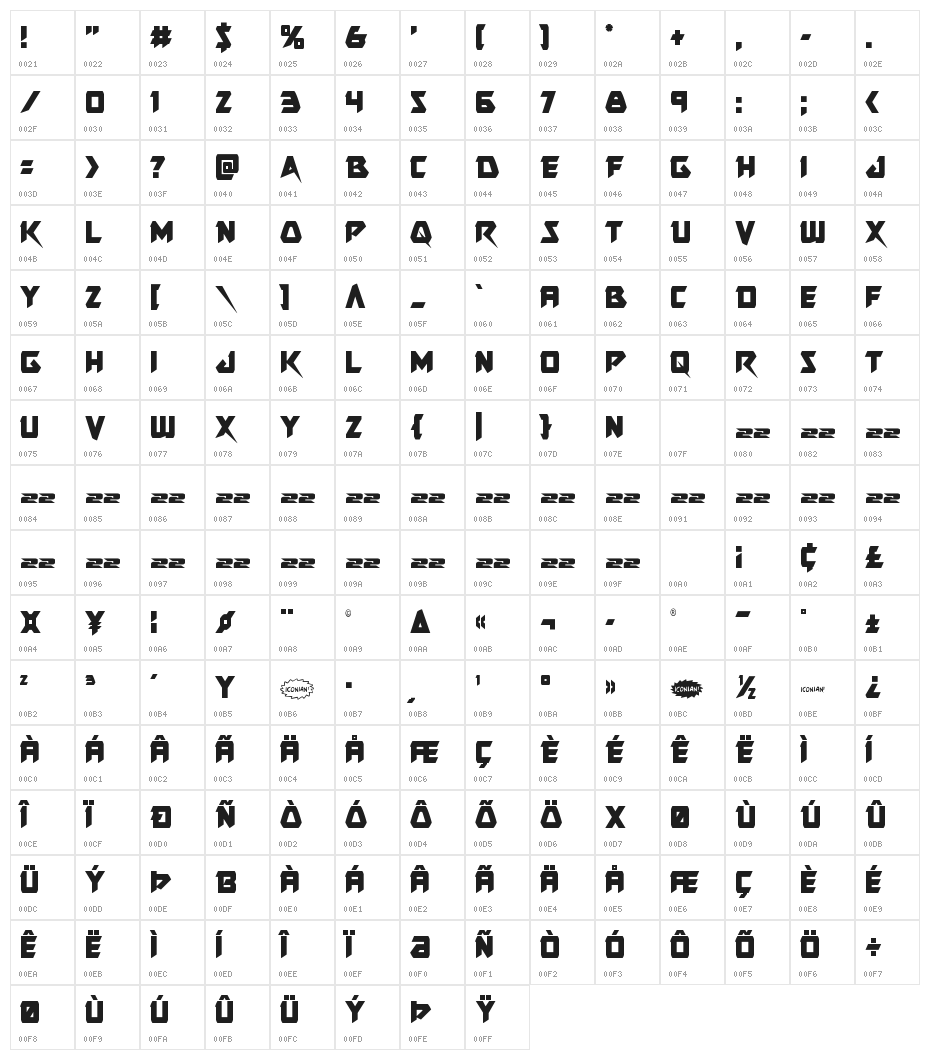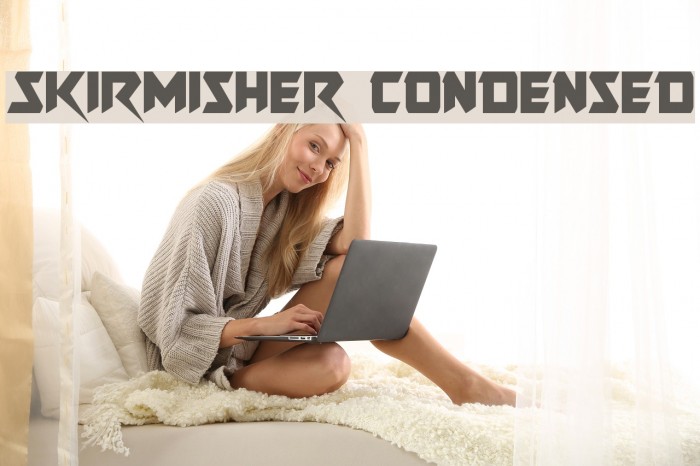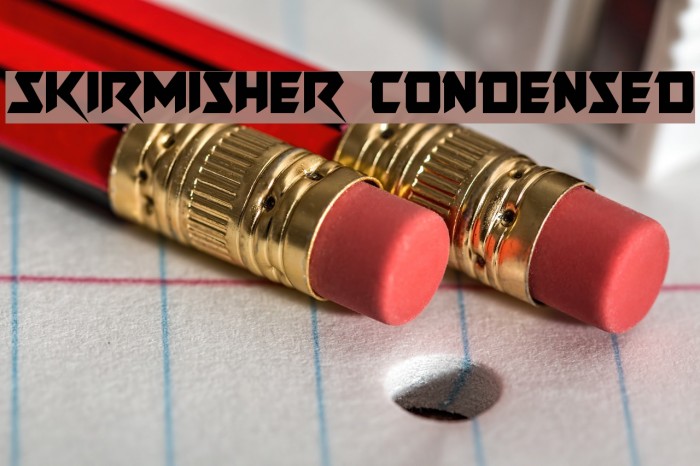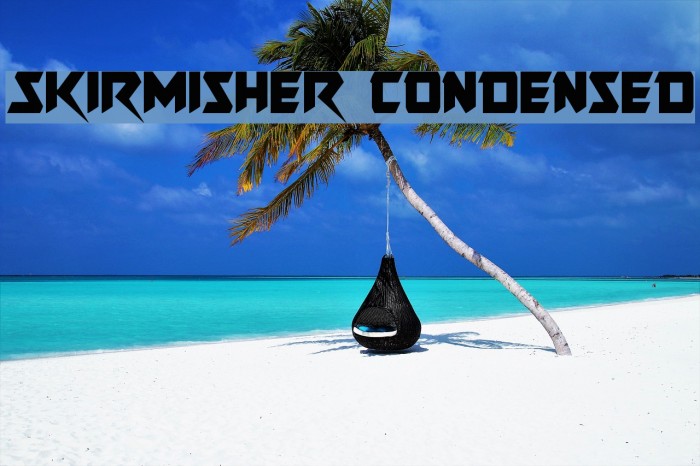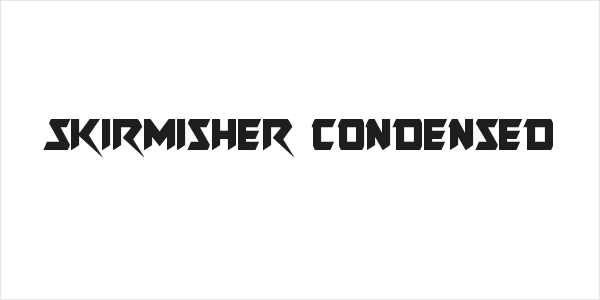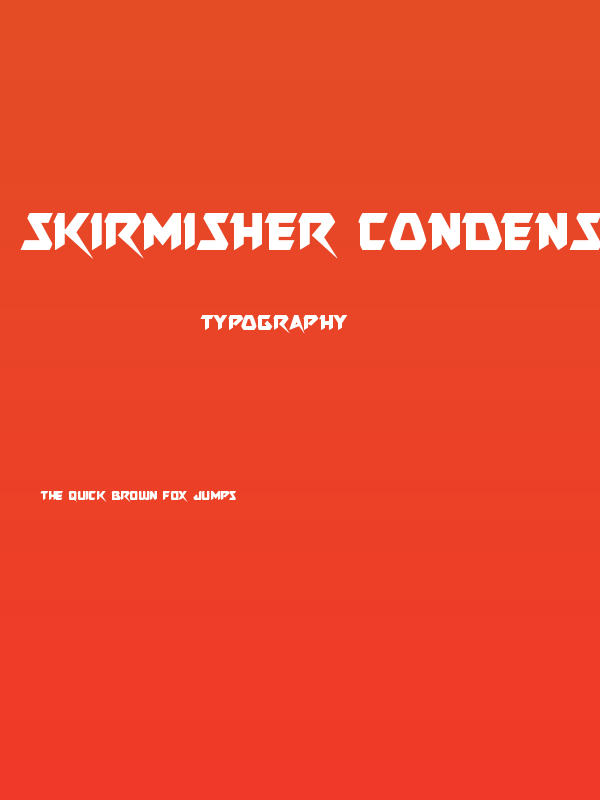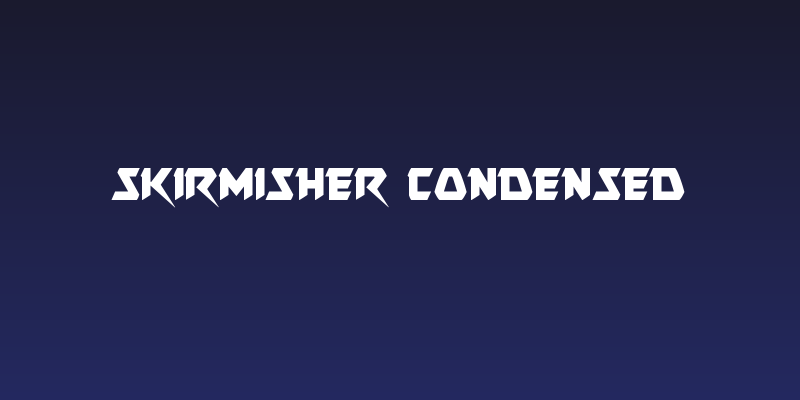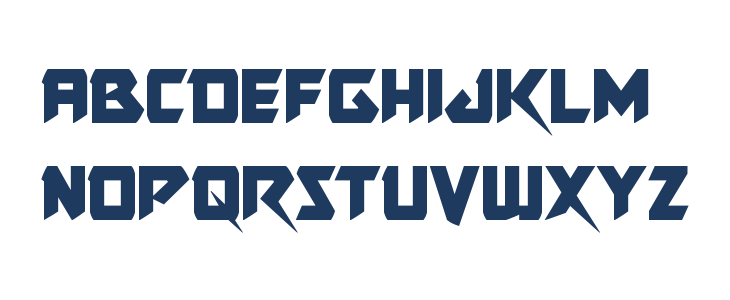
Skirmisher Condensed Font
Skirmisher Condensed Description
This font features a bold and aggressive design with sharp, angular edges and a condensed structure. The characters are heavily stylized, resembling a futuristic or military aesthetic. The uppercase and lowercase letters maintain a consistent geometric form, while the numbers and special characters follow the same angular theme. The overall appearance is striking and impactful, making it suitable for attention-grabbing designs. The font's condensed width allows for efficient use of space, while the high contrast in stroke thickness adds to its bold presence.
| Proposed Projects | Ideal for video game titles, movie posters, branding for tech or defense companies, and any project requiring a strong, modern look. |